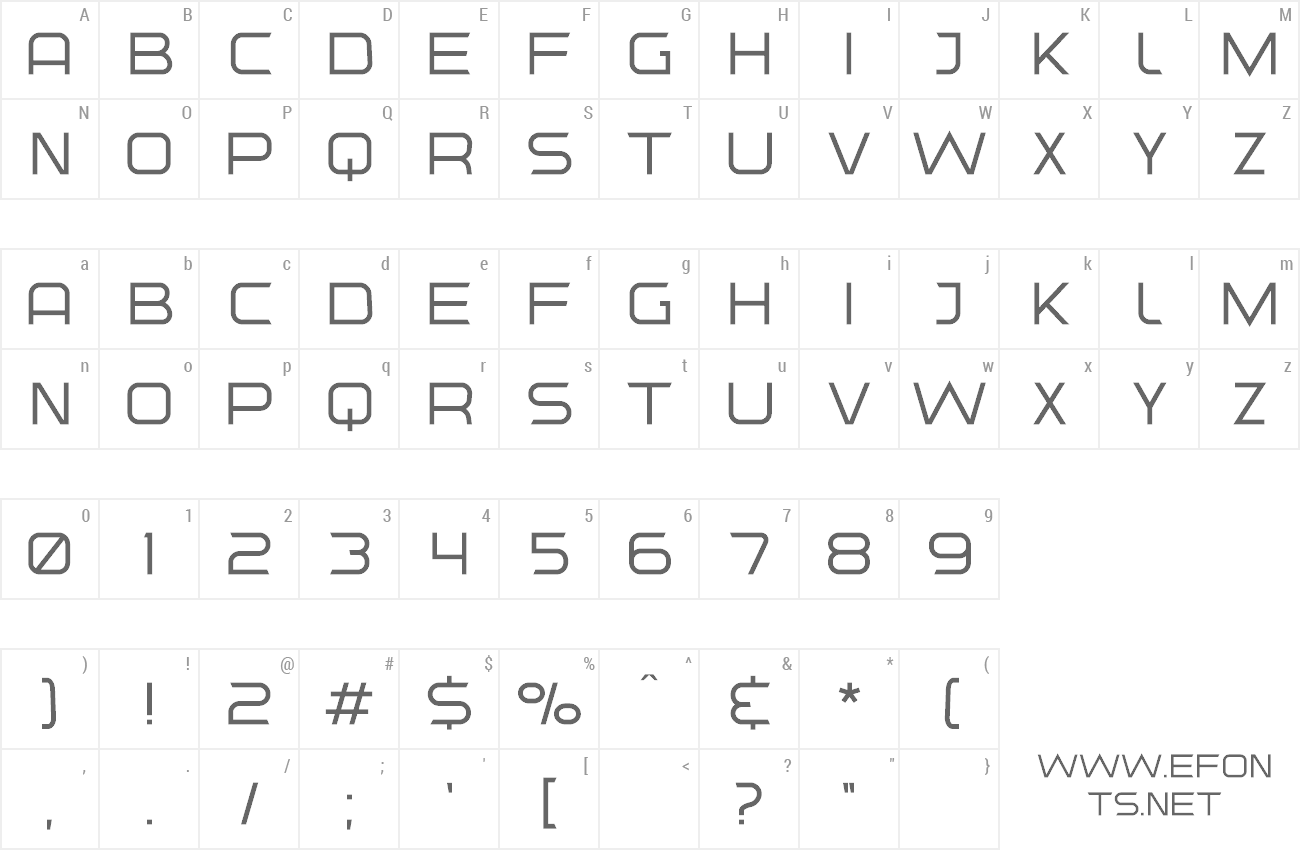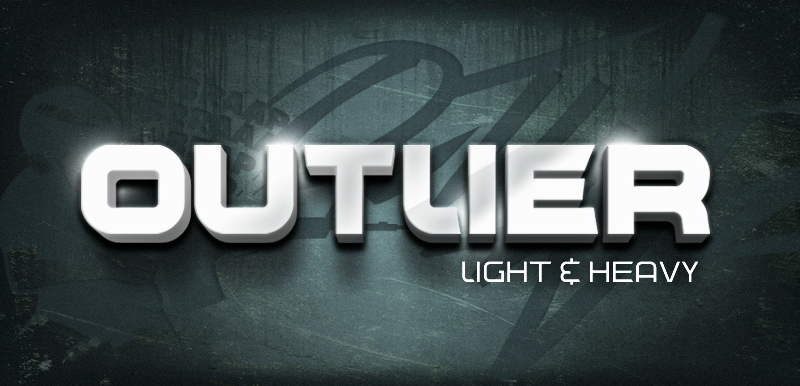
| Font name: | Outlier |
| Author: | MuraKnockout Media + Design |
Your designs should make a statement. Your designs should stand apart from the rest. Outlier is a multipurpose capital font created for Team Outlier (outliervideo.com) in 2 weights: BOLD and Light. This font also includes symbols and foreign characters. Give your logos, titles, and text an extra edge- ----------------------- This font is totally free. Please use this font however you see fit, personally or commercially. All I ask is that you share the love! ----------------------- Check out my new Font Blog to stay up to see when I release new fonts! http://michaelmuranaka.com ----------------------- Please DO NOT download this font and redistribute it on another website!!! This is free to do with whatever you wish, personal or commercial, just don't claim ownership, sell it, or redistribute it. For more information see: http://michaelmuranaka.com/font-licensing-agreement-2/ It might be cool if you use the font to either credit Michael Muranaka, or show me how you used it! Enjoy! |